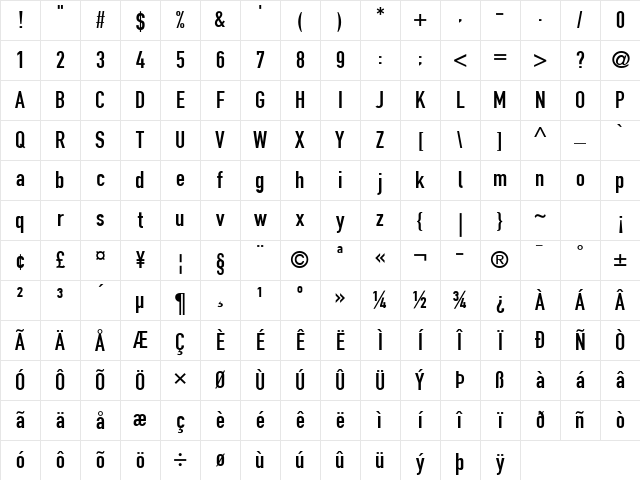
DINEngschrift LT Alternate Regular
Design Context for DINEngschrift LT Alternate
DINEngschrift LT Alternate is a composed and adaptable typeface that performs quietly and consistently across a wide range of design contexts. Its slender proportions lend an understated elegance to any composition.